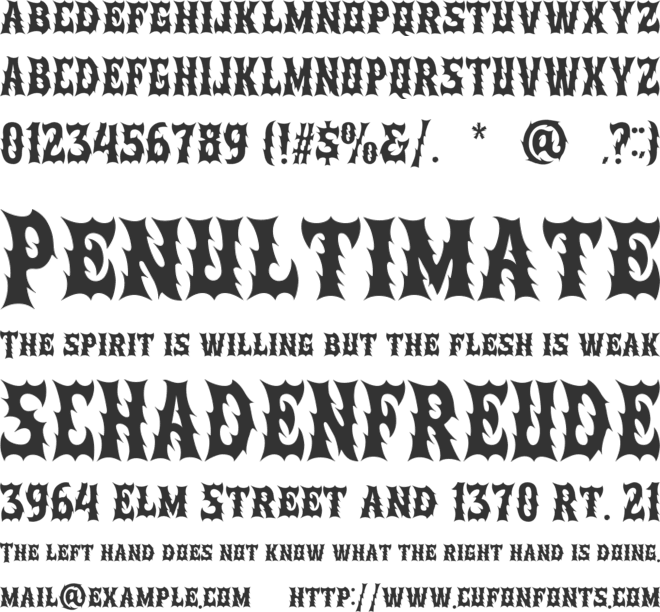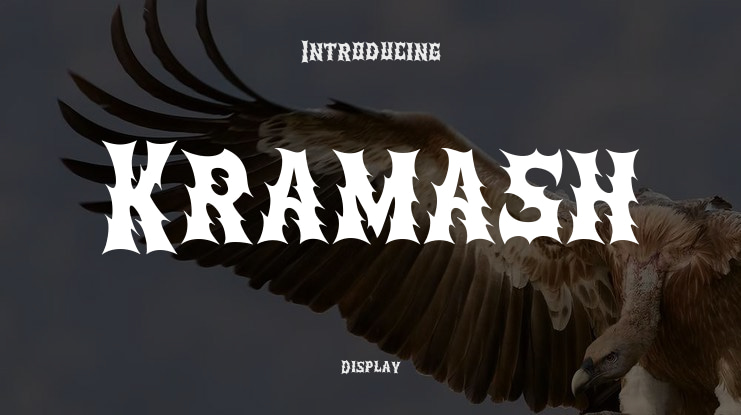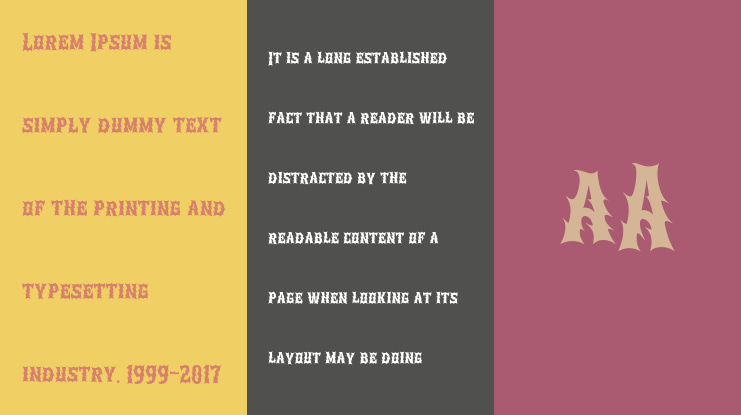
KRAMASH Typeface – Where Serpent Strikes Meet Metalcore Fury
Enter the abyss with Kramash, a bold and brutal display typeface born from the depths of metalcore chaos. Designed for those who crave intensity, attitude, and visual impact, Kramash merges ancient darkletter traditions with the modern aggression of thorn-wrapped serpents — creating a font that feels alive, dangerous, and untamed.
Inspired by the raw energy of underground music scenes, this typeface doesn't just speak — it screams with a venomous elegance. Each glyph is carefully sculpted with razor-sharp spines and sinuous curves, echoing the form of a coiled serpent ready to strike. The result? A visually fierce yet surprisingly legible font that commands attention without sacrificing clarity.